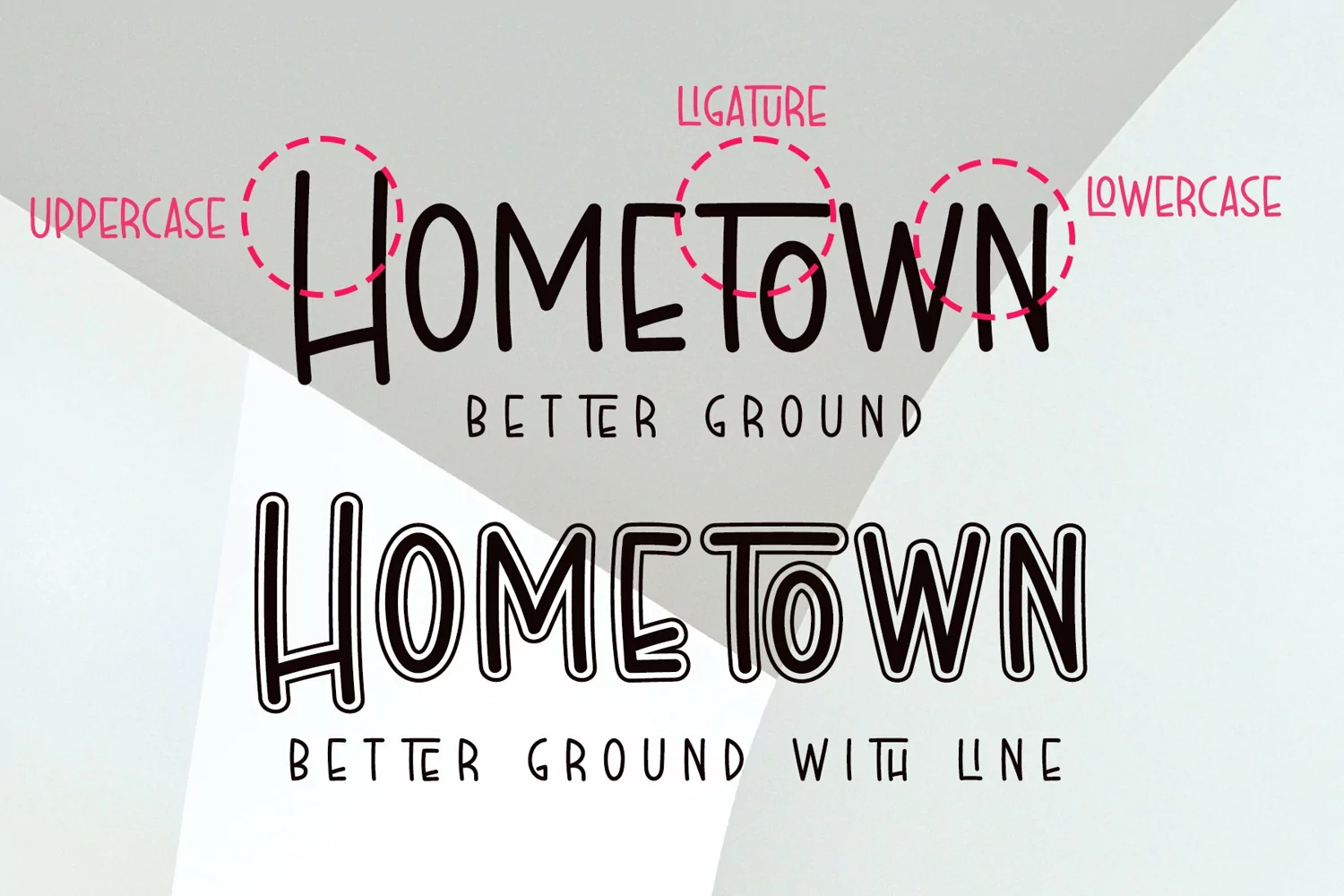
Better Ground is simple, tiny, and skinny handwritten font. It has 2 styles, regular and with line. The simplicity of this font will make your design look fabulous and elegant.
+Tons of Glyphs, including beautiful alternate glyphs.
+Multilingual glyphs.